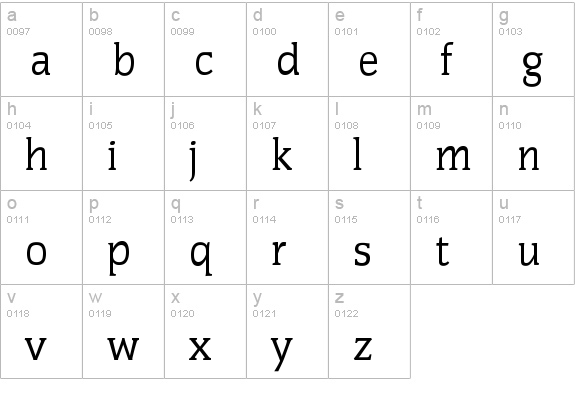
Congress-Regular is the standard, neutral variant in the Congress typeface family \xE2\x80\x94 well suited to general body text, paragraphs, and standard typographic work.
Congress-Regular font is a versatile and elegant typeface that exudes professionalism and sophistication. With its clean lines and modern aesthetic, this font is perfect for a wide range of design projects, from branding to editorial design. The classic yet contemporary style of Congress-Regular font makes it a timeless choice that will never go out of style. Designed with readability in mind, Congress-Regular font is ideal for both print and digital applications. Whether you're creating a sleek logo, elegant invitations, or polished brochures, this font will add a touch of refinement to your design. Best of all, Congress-Regular font is available for free download at FontsMarket.com. Take advantage of this amazing offer and enhance your projects with the timeless beauty of Congress-Regular font today!